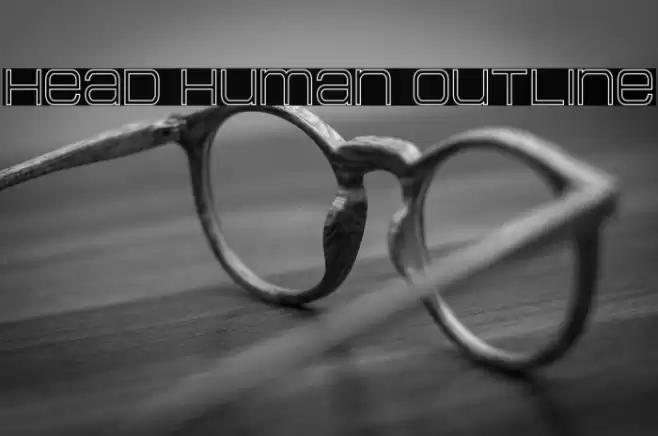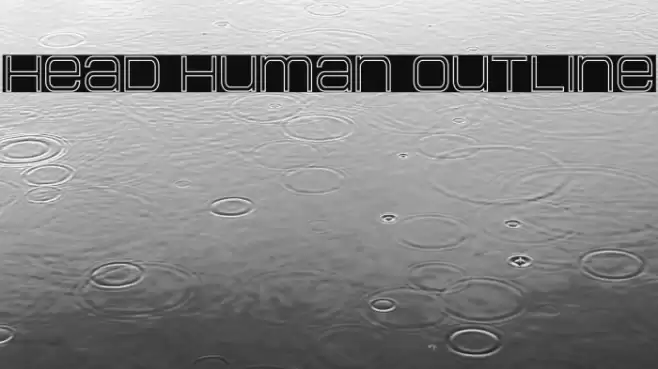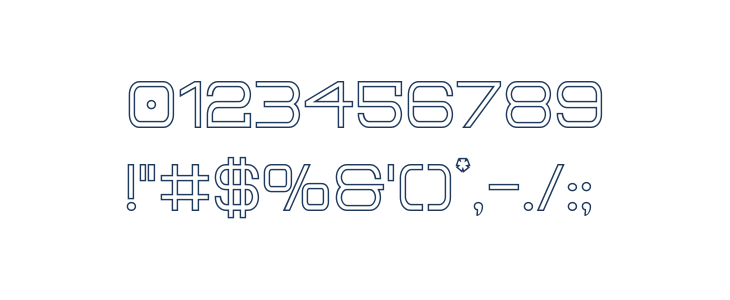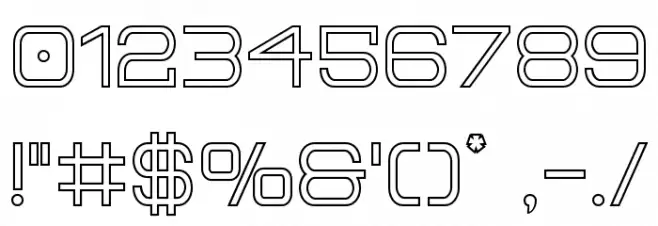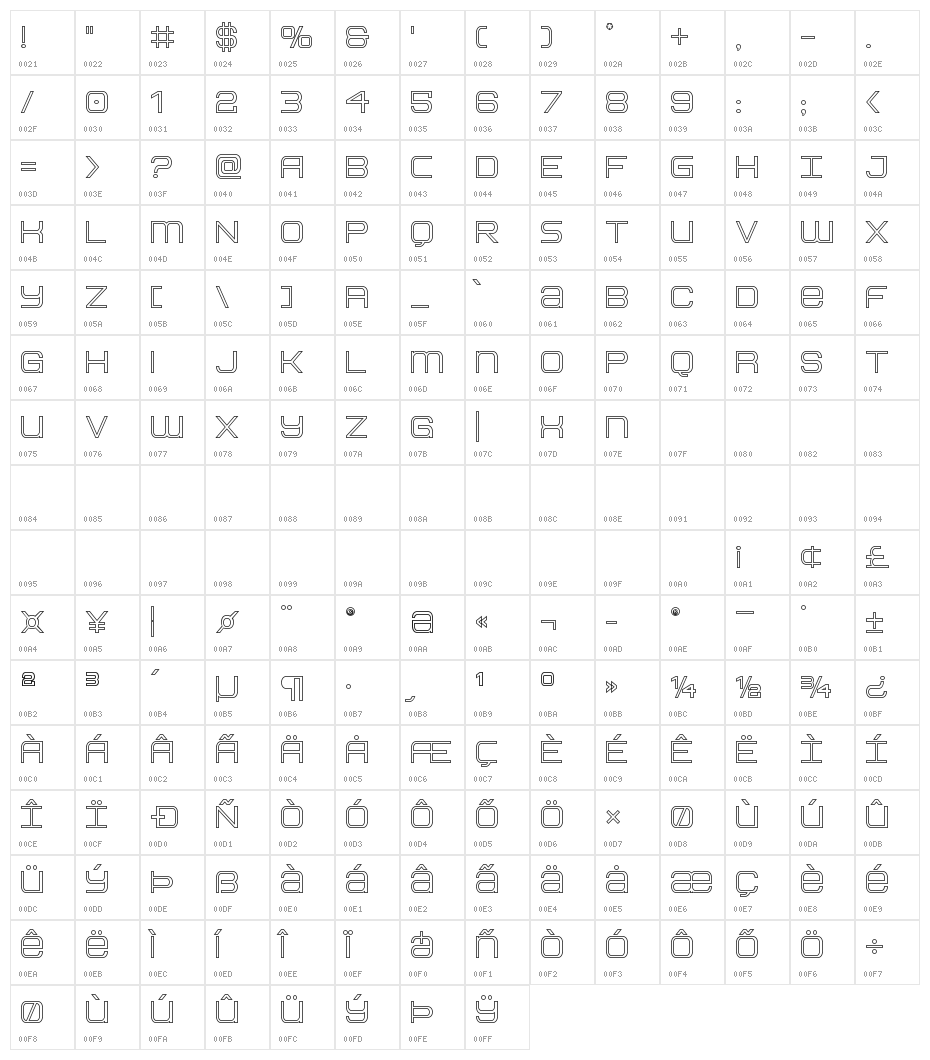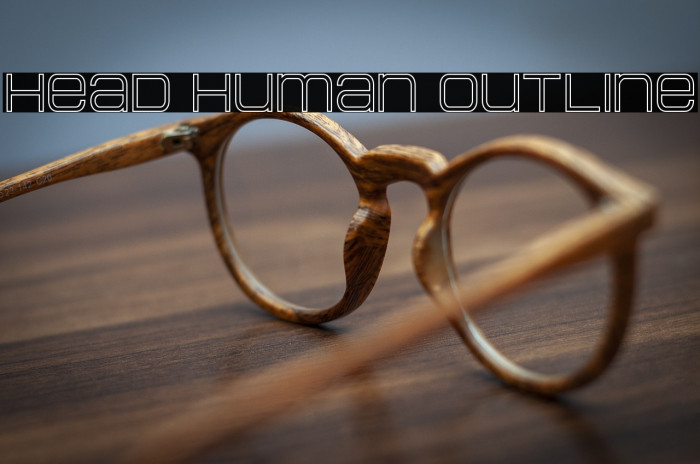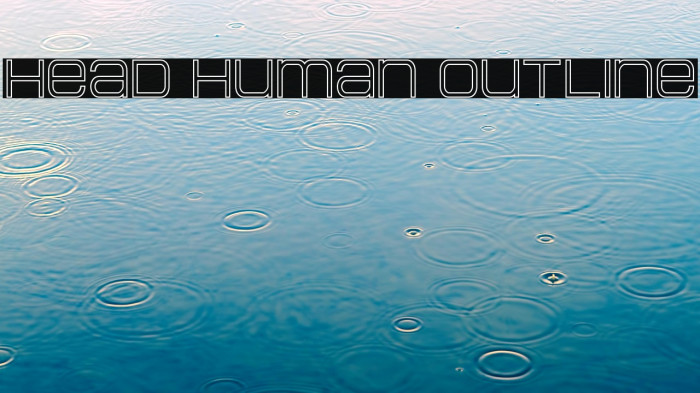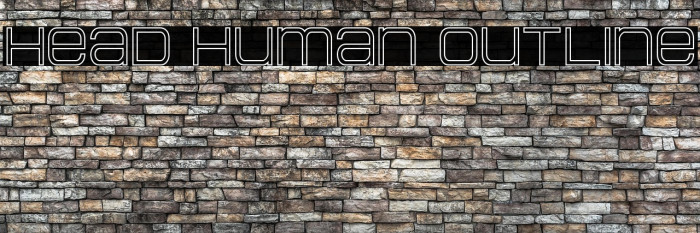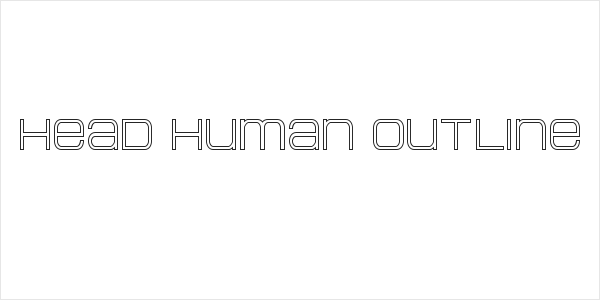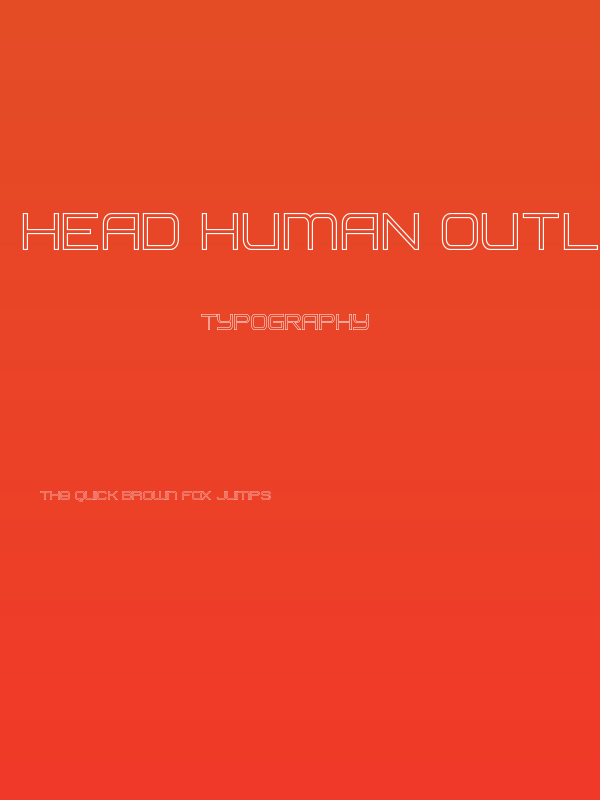
Head Human Outline Font
Head Human Outline Description
This font features a modern and futuristic design with an outline style that gives it a unique and striking appearance. The characters are geometric and uniform, with clean lines and a consistent stroke width. The uppercase and lowercase letters maintain a similar structure, enhancing readability while adding a contemporary flair. The numerals and special characters are designed to match the overall aesthetic, making the font versatile for various applications. Its outline nature makes it ideal for projects that require a bold statement without overwhelming the viewer.
A modern, geometric outline font with a futuristic design from Uncategorized fonts.
- Proposed Projects: Ideal for branding, logos, posters, and digital media that require a modern and eye-catching look.